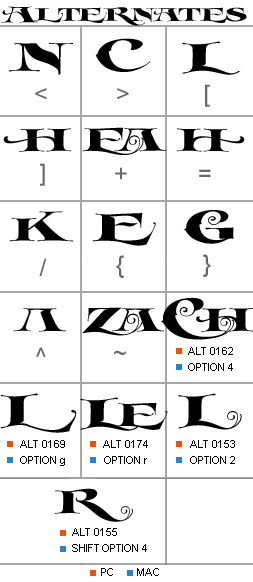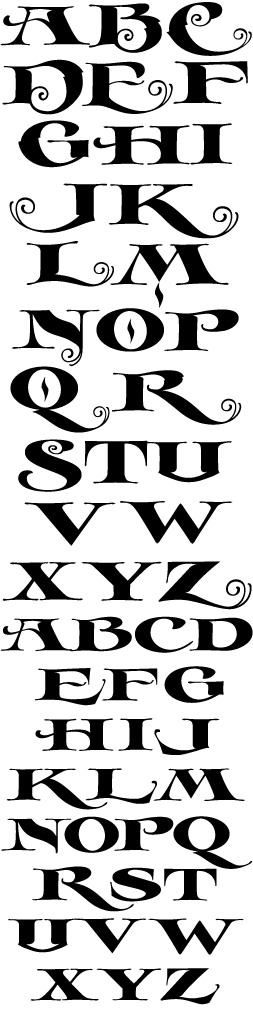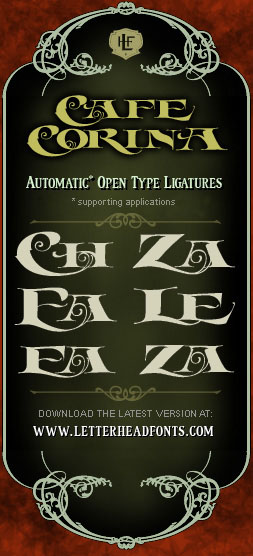
LHF Cafe Corina Enjoy this one of a kind custom creation from Chuck Davis. Beautiful curves make it a must have. Features a few automatic substitutions for those programs that support them. General notes for using Cafe Corina